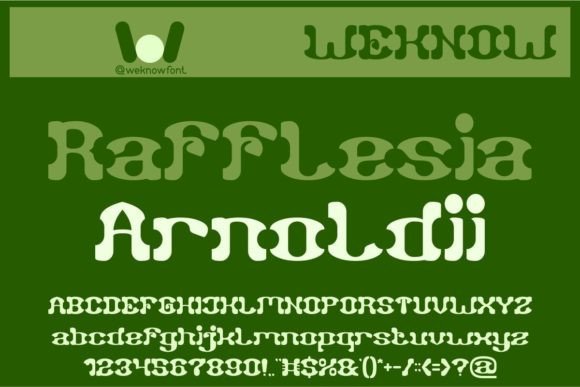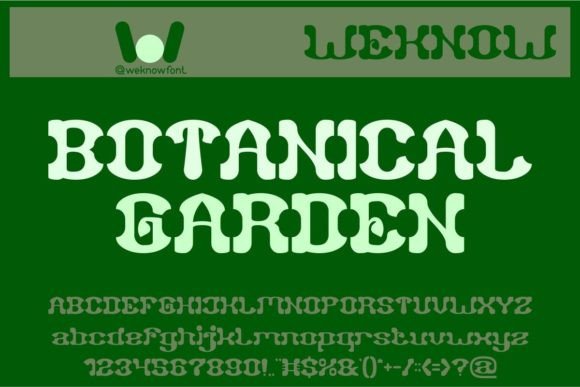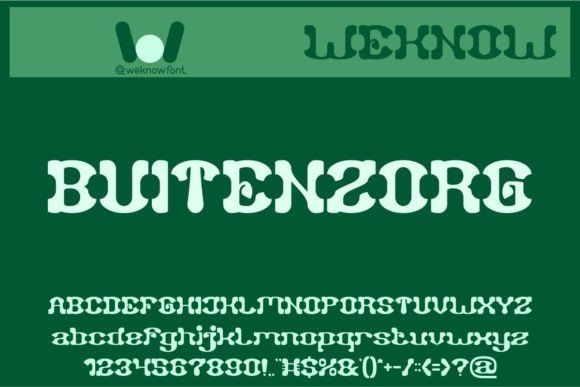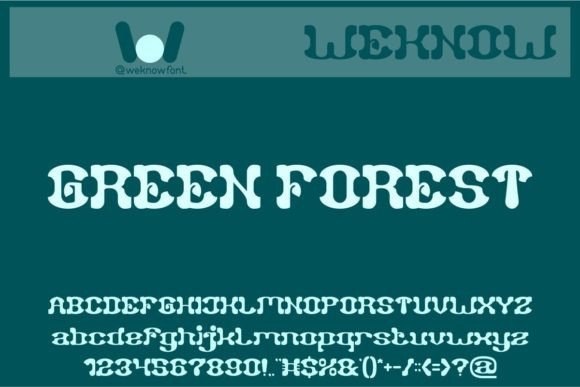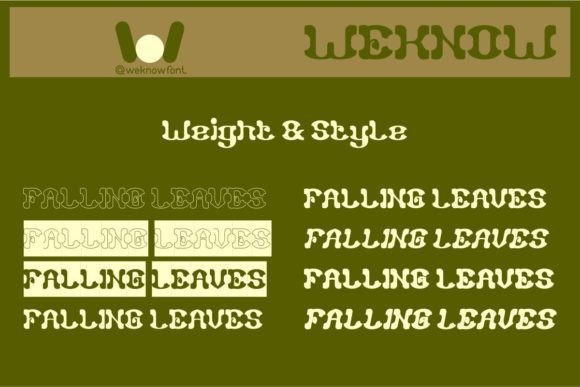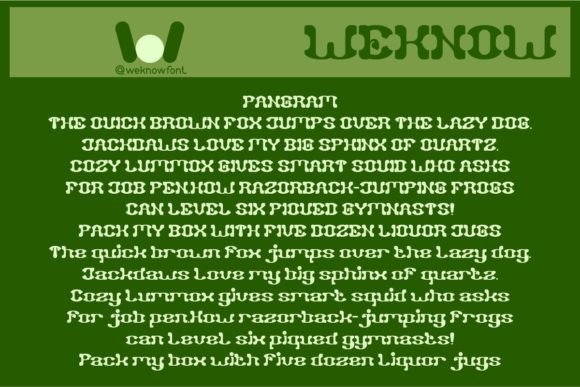
Unveil the Allure of Nature with Falling Leaves Font
Are you tired of using the same old fonts for your design projects? Do you want to add a touch of nature and elegance to your game, movie, or music projects? Look no further than Falling Leaves, an organically inspired art deco display font that is sure to elevate your designs to the next level.
The Beauty of Art Meets Versatility of Communication
Falling Leaves font is a masterpiece of design, combining the beauty of art with the versatility of communication. Its extravagantly designed characters are perfect for headlines, corporate identities, or brand images that seek a touch of nature. With Falling Leaves, you can add a distinctive touch to your Instagram, YouTube channels, and websites, setting them apart from the crowd.
Perfect for Creative Design Ventures
Whether you are a designer, crafters, or DIY enthusiast, Falling Leaves font is suitable for all kinds of creative design ventures. From apparel labels to posters, books, magazines, and comics, this font brings a charismatic blend of the aesthetic and the communicative. With Falling Leaves, you can make your designs more engaging, more expressive, and more memorable.
Key Features of Falling Leaves Font
- Organically Inspired Art Deco Design: Falling Leaves font is inspired by the natural world, with an art deco twist that adds a touch of luxury and sophistication.
- Extravagantly Designed Characters: Each character in Falling Leaves font is carefully crafted to deliver remarkable visual appeal, making it perfect for headlines and display text.
- Quintessential Character: The font’s quintessential character makes it an ideal choice for corporate identities, brand images, and other design projects that seek a touch of nature.
- Versatile and Communicative: Falling Leaves font is not just beautiful, but also highly versatile and communicative, making it perfect for a wide range of design projects.
Use Falling Leaves Font to Elevate Your Designs
So, how can you use Falling Leaves font to elevate your designs? Here are a few ideas to get you started:
- Add a Touch of Nature to Your Brand: Use Falling Leaves font to add a touch of nature to your brand images, corporate identities, and marketing materials.
- Create Eye-Catching Headlines: Use Falling Leaves font to create eye-catching headlines for your game, movie, or music projects.
- Make Your Apparel Labels Unique: Use Falling Leaves font to make your apparel labels stand out from the crowd.
- Add a Charismatic Touch to Your Posters: Use Falling Leaves font to add a charismatic touch to your posters, making them more expressive and memorable.
Why Choose Falling Leaves Font?
So, why choose Falling Leaves font for your design projects? Here are a few reasons:
- Unique and Exclusive Design: Falling Leaves font has a unique and exclusive design that sets it apart from other fonts.
- Highly Versatile: Falling Leaves font is highly versatile and can be used for a wide range of design projects.
- Easy to Read and Understand: Despite its extravagant design, Falling Leaves font is easy to read and understand, making it perfect for display text and headlines.
- Perfect for Designers and Crafters: Falling Leaves font is perfect for designers and crafters who want to add a touch of nature and elegance to their designs.
In conclusion, Falling Leaves font is a masterpiece of design that combines the beauty of art with the versatility of communication. With its organically inspired art deco design, extravagantly designed characters, and quintessential character, Falling Leaves font is perfect for designers, crafters, and DIY enthusiasts who want to add a touch of nature and elegance to their designs. Whether you are working on a game, movie, or music project, or simply want to create eye-catching headlines and posters, Falling Leaves font is the perfect choice.